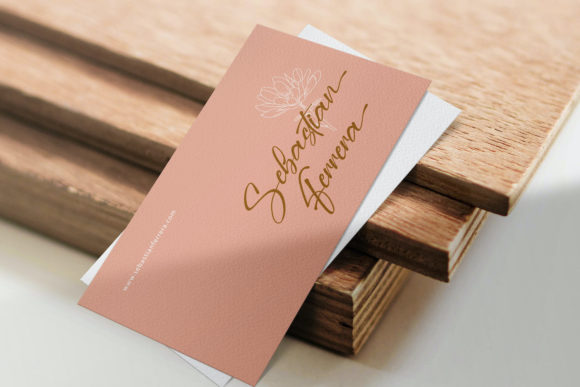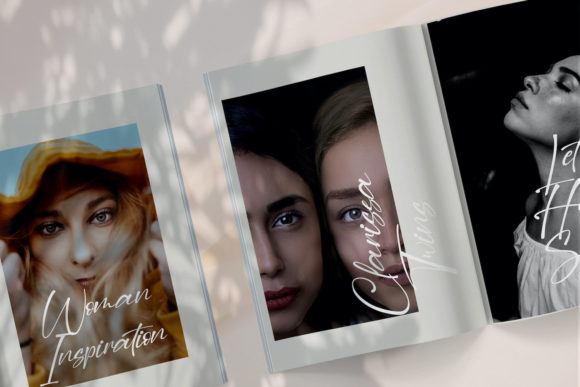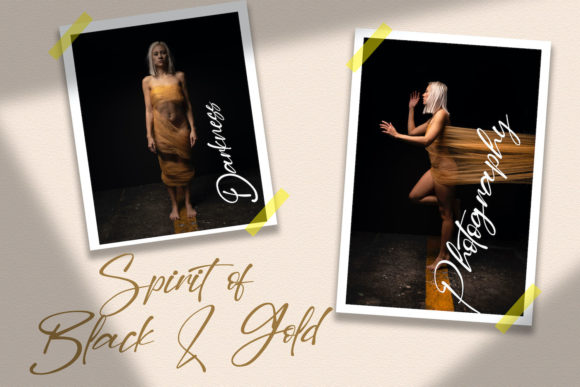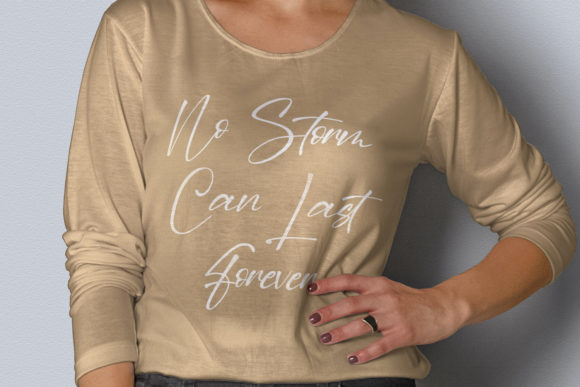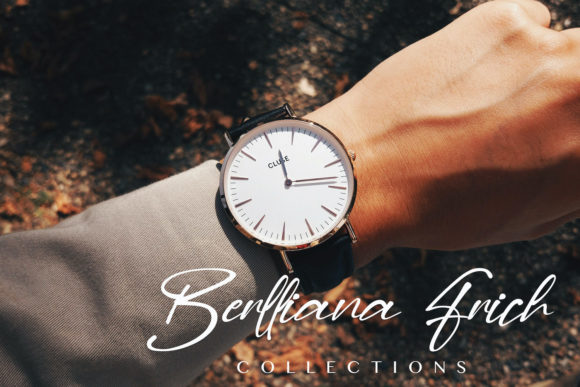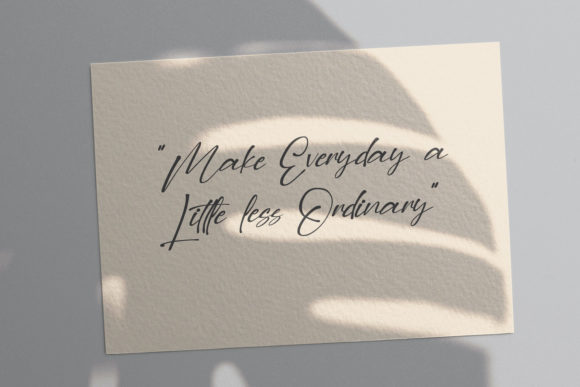
Discover the Elegance of Dilan Font: A Delicate Handwritten Font for Creative Designs
In the world of typography, a font can make or break a design. For designers and crafters looking for a touch of elegance and sophistication, the Dilan Font is an excellent choice. This delicate, elegant, and flowing handwritten font is designed to bring a new level of refinement to your creative projects. With its beautiful and well-balanced characters, Dilan Font is versatile enough to match a wide pool of designs, making it a valuable addition to your font collection.
The Characteristics of Dilan Font
Dilan Font is characterized by its delicate and flowing lines, which give it an air of elegance and sophistication. Each character is carefully crafted to ensure balance and harmony, making it perfect for designs that require a touch of refinement. The font’s flowing nature allows it to connect with a wide range of design styles, from modern and minimalist to vintage and ornate.
One of the standout features of Dilan Font is its PUA (Private Use Area) encoding. This means that the font includes a range of glyphs and swashes that can be easily accessed, allowing designers to experiment with different styles and effects. The PUA encoding ensures that you can unlock the full creative potential of Dilan Font, making it easier to bring your design ideas to life.
Why Choose Dilan Font?
So, why should designers and crafters choose Dilan Font for their creative projects? Here are just a few reasons:
- Elegance and Sophistication: Dilan Font adds a touch of elegance and sophistication to any design, making it perfect for projects that require a refined aesthetic.
- Versatility: The font’s delicate and flowing lines make it versatile enough to match a wide range of design styles, from modern and minimalist to vintage and ornate.
- Easy to Use: With PUA encoding, accessing glyphs and swashes is easy, allowing designers to focus on the creative process rather than getting bogged down in technical details.
- High-Quality Design: Each character in Dilan Font is carefully crafted to ensure balance and harmony, making it a high-quality addition to any design.
Using Dilan Font in Your Designs
So, how can you use Dilan Font in your designs? Here are a few ideas to get you started:
- Wedding and Event Invitations: Dilan Font is perfect for wedding and event invitations, adding a touch of elegance and sophistication to your designs.
- Branding and Packaging: The font’s versatility makes it suitable for branding and packaging designs, where a refined aesthetic is essential.
- Stationery and Greeting Cards: Dilan Font is ideal for stationery and greeting cards, adding a personal touch to your designs.
- Digital and Print Media: The font’s flowing lines make it suitable for digital and print media, including magazines, brochures, and posters.
In conclusion, Dilan Font is a delicate, elegant, and flowing handwritten font that is perfect for designers and crafters looking to add a touch of sophistication to their creative projects. With its beautiful and well-balanced characters, PUA encoding, and versatility, Dilan Font is an excellent choice for a wide range of design applications. Whether you’re working on a wedding invitation, branding project, or digital media design, Dilan Font is sure to bring a new level of elegance and refinement to your work.